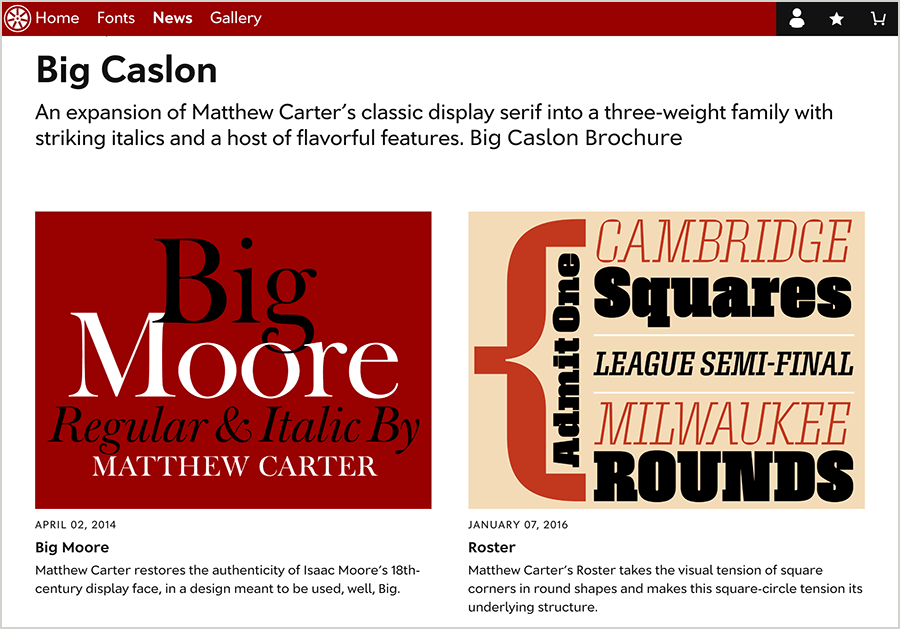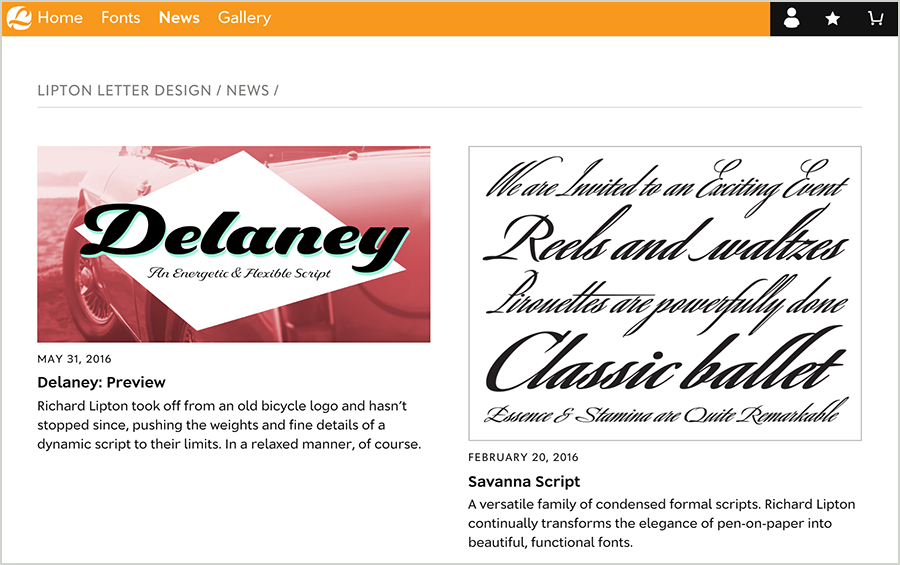
Font Bureau and Partners Launch Type Network
For the past two decades, Font Bureau has been one of the leading digital type foundries, with a library that includes some of the most celebrated fonts on the market. Founded in 1989 by type designer David Berlow and noted publication designer Roger Black, Font Bureau has built and maintained their reputation for producing typefaces of the highest quality. In fact, everything they produce, including their web site and all of their promotional and marketing materials, has always been exquisite, well-crafted, and highly functional.
Font Bureau announces the Type Network with this dynamic banner. Typefaces shown clockwise from left to right: Belizio (David Berlow), Titling Gothic FB (Berlow), Neue Haas Grotesk (Christian Schwartz), Whitman (Kent Lew), Escrow (Cyrus Highsmith), Interstate (Tobias Frere-Jones), Moderno FB (Berlow), and Agency FB (Berlow).
But now, big changes are happening at Font Bureau. This independent type company is refocusing its brand and collaborating with new foundry partners on a major initiative – Type Network. Type Network is a new model for type design, development, licensing, and use. It was built in response to the often complex and ever-changing requirements of good typography and smart type users. A private company owned by type designers, Type Network is focused on its mission – to find, support, and make available the best type.
Like most independent foundries, Font Bureau likes designing type. But the type world has become so much bigger in recent years, and the expectations and demands much greater. Web fonts, globalization, and the increased frequency of new designs called for a different kind of organization – a collaboration by a diverse group passionate about quality, creativity, innovation, and telling stories through type. Type Network was founded to meet these needs. It is privately owned and operated by type designers and a management team devoted to the type business. Its new site is a destination for professional users, featuring a varied catalog of expansive typeface families and licensing options for desktop, web fonts, apps, and more.
“Type Network’s web developers, editors, marketing experts, and business group have together envisioned and made a font site for the 21st century,” said Sam Berlow, president of Type Network. “We have built a site designed for type users to shop; where type designers can present not only their products, but also their stories.”
Type Network has launched with established type designers and foundries such as Font Bureau, Carter & Cone, Petr van Blokland’s Typetr, and Cyrus Highsmith’s Occupant Fonts; emerging new Type Network brands from David Jonathan Ross (DJR), Richard Lipton (Lipton Letter Design), and Victoria Rushton; and veteran Font Bureau designers Zavier (Leslie) Cabarga and Greg Thompson. Many more foundries will soon join the Type Network family as their own brands.
Type users can easily explore a single foundry’s collection, browse Type Network’s rich catalog with its wide variety of typefaces, and license fonts from multiple designers effortlessly. Users can connect directly with foundries while shopping for type. Its flexible platform allows each foundry to maintain its unique brand by building a personalized storefront.
Searching for a specific kind of font is easy, as can be seen from the menu on the left. There are filters for foundries and for parameters like weight and width, design categories, intended use, and more.
With this move, Font Bureau will focus primarily on type design and custom services. The company’s font licensing business, font development activities, and retail shop will live on Type Network. “With our partners at Type Network, Font Bureau’s goal is to be the destination for designers of all kinds who want the best fonts, offered directly by type designers,” said David Berlow, founder of the Font Bureau and a partner in the new endeavor.
This is just a taste of what you’ll find on Type Network. They’ll be adding more features, more content, and more great type from a growing coalition of independent foundries and designers. It’s a challenging, exciting time for type makers, with a world of ever-expanding typographic opportunities available to designers. Just as Font Bureau has been at the forefront of digital type since the foundry debuted more than 25 years ago, the entire team is looking forward to the future. “We’re delighted to be part of a new era in the history of type,” said David Berlow. “Type Network is all part of the next thing: an exploration of the combinatorial explosion of possibilities for typography and its use.”
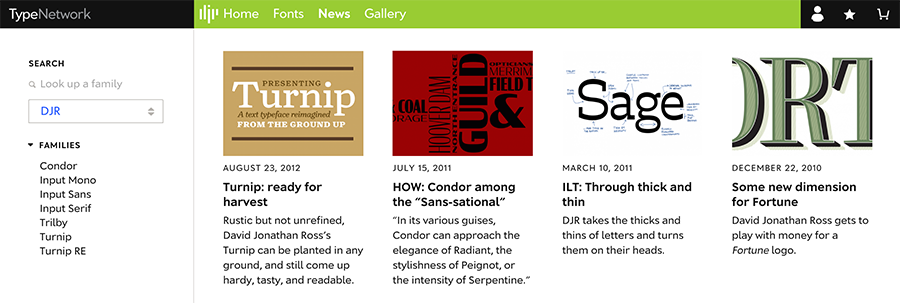
The News section shown in these three images features curated articles from Type Network and beyond, focusing on timely topics about type design and typography.
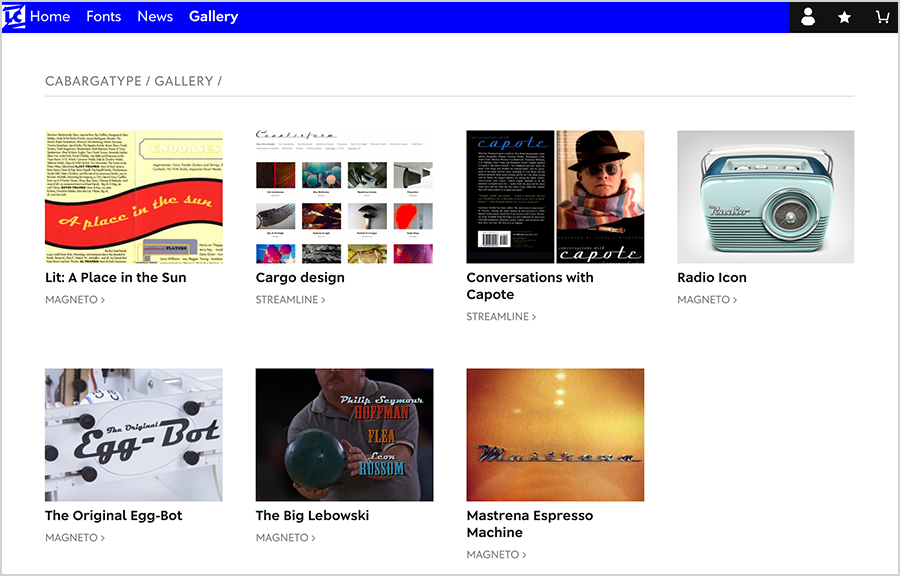
Type Network’s frequently updated Gallery features hundreds of uses of their fonts, providing users with daily inspiration.